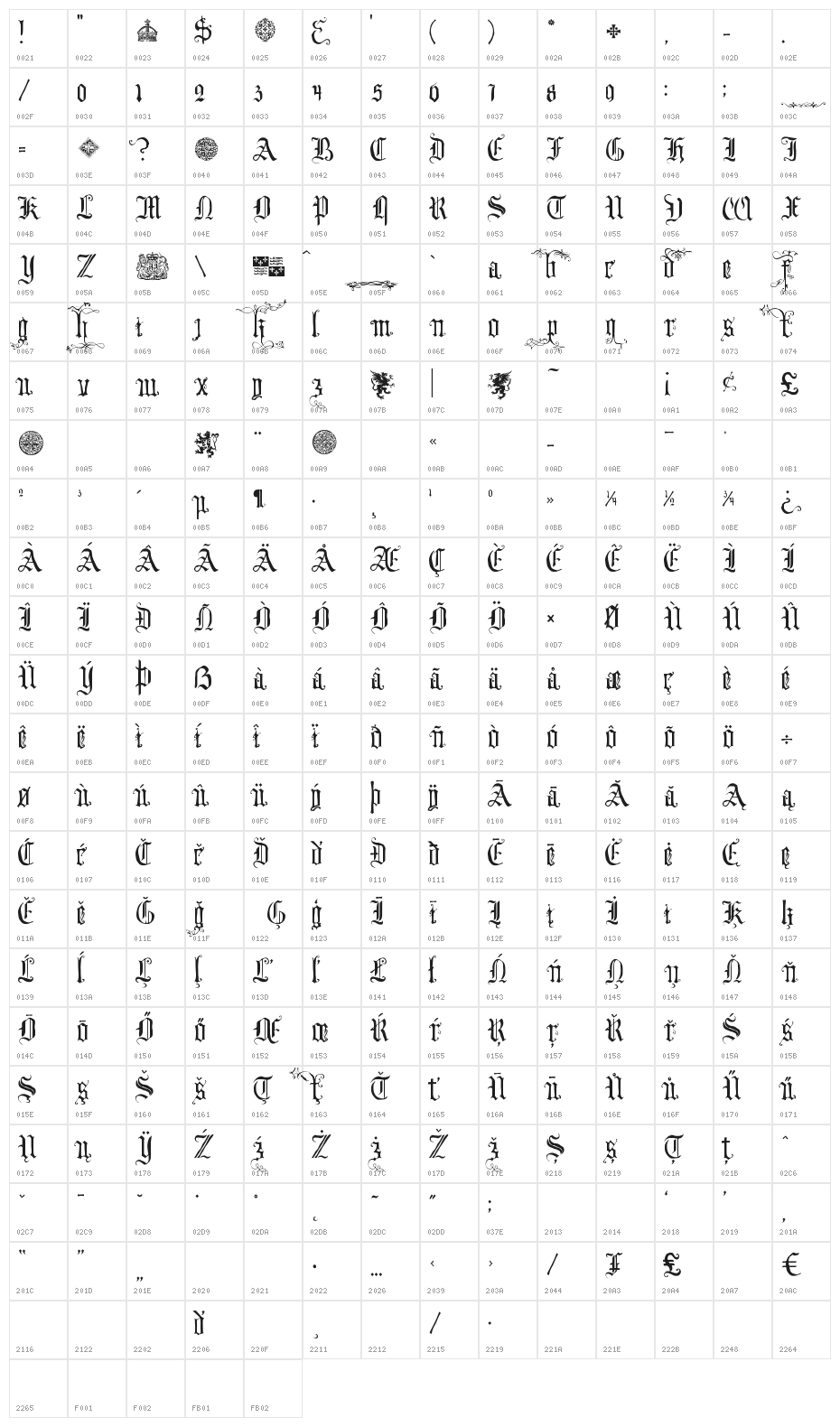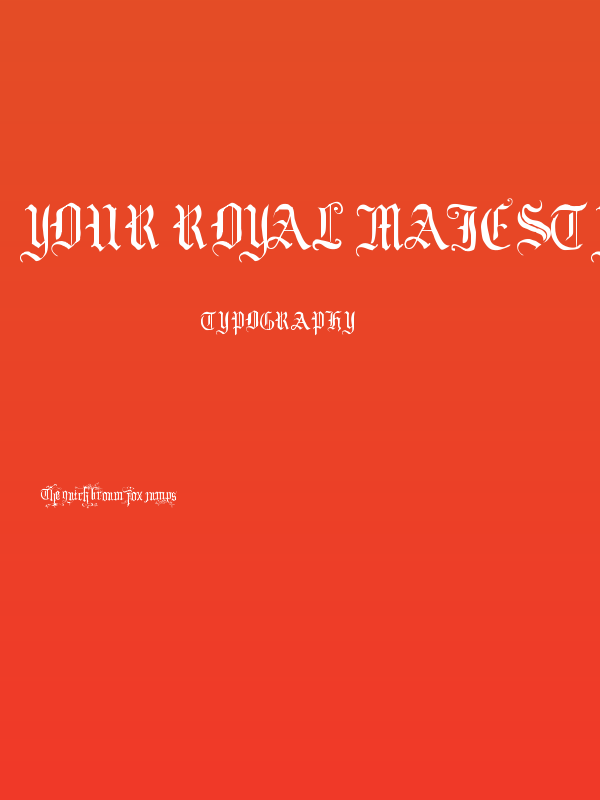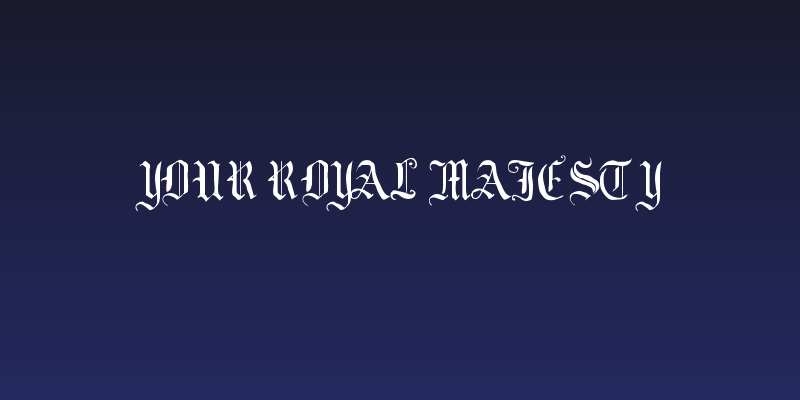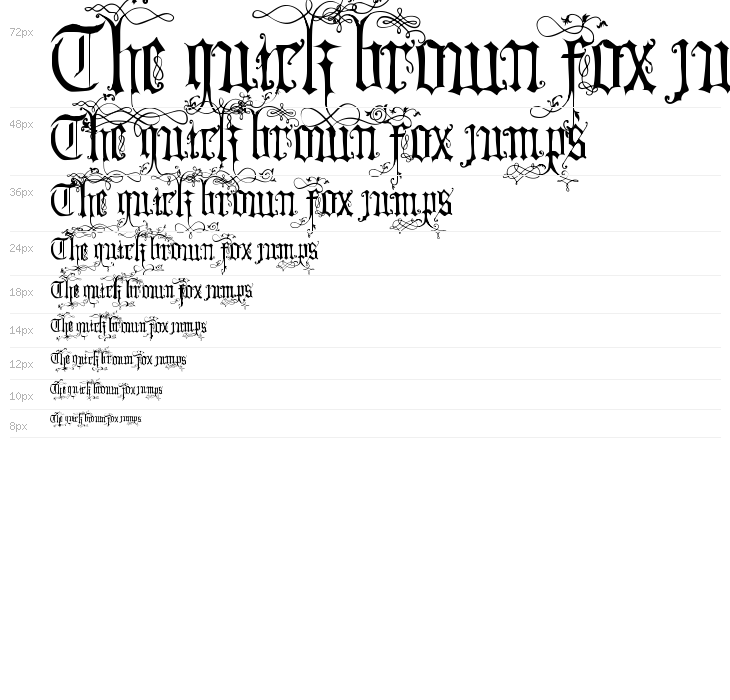
Your Royal Majesty Font
Your Royal Majesty Description
This font exudes a regal and historical charm, reminiscent of medieval manuscripts and royal decrees. The uppercase letters are adorned with intricate flourishes and sharp serifs, giving them a majestic and authoritative presence. The lowercase letters maintain a consistent style, with elaborate swashes and decorative elements that enhance their elegance. The numerals are bold and clear, yet they retain the ornate style of the alphabet. Special characters are uniquely designed, incorporating crowns and other royal motifs, adding to the font's overall opulence. This font is perfect for projects that require a touch of grandeur and sophistication.
| Proposed Projects | Ideal for wedding invitations, historical documents, luxury branding, and theatrical posters. |